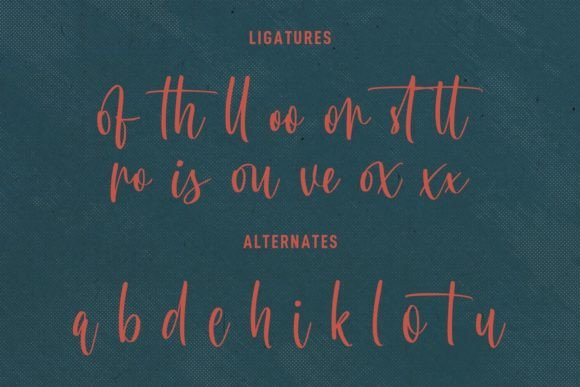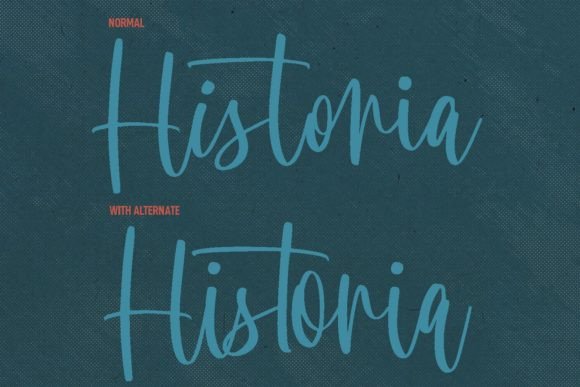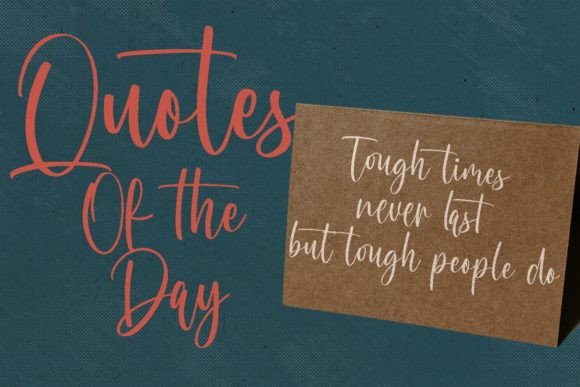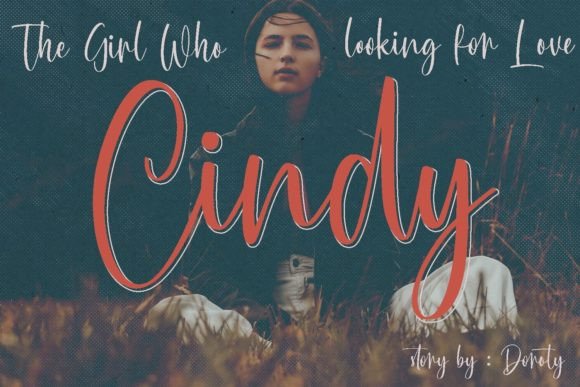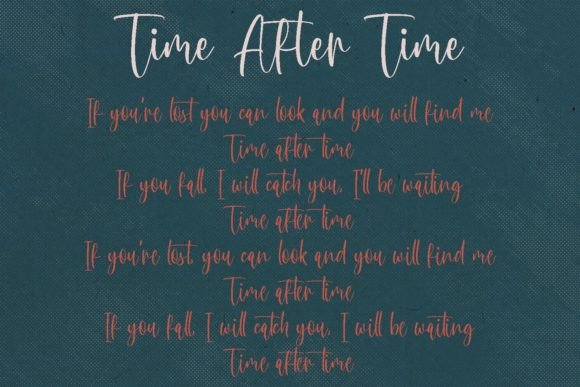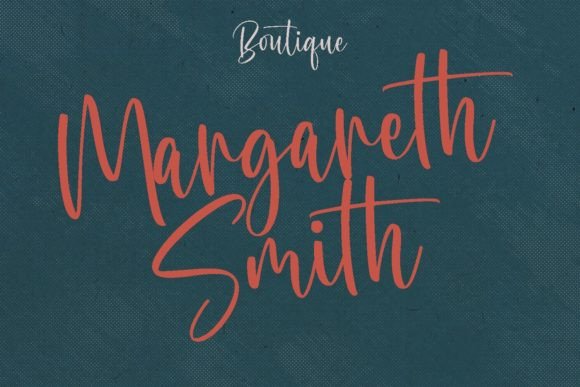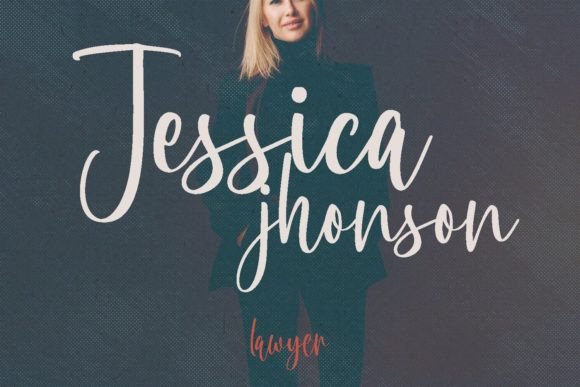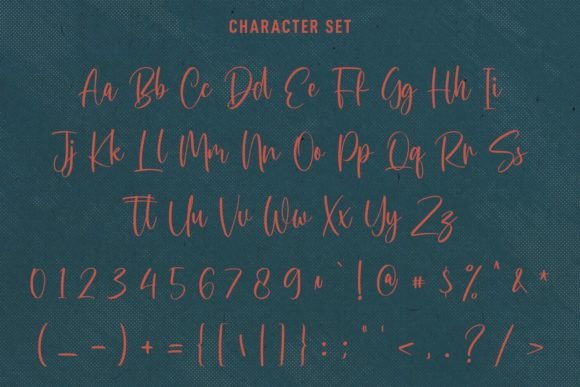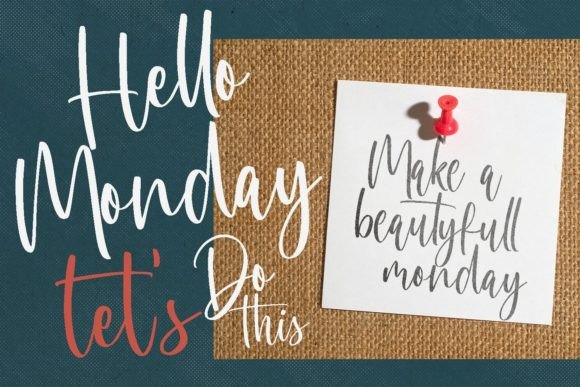
Bleachys Font
About Bleachys Font
Bleachys, a modern and casual script font, emerges with a high-contrast stroke, lively characters, and the added flair of ligatures and alternates, providing ample creative opportunities. This font is well-suited for a range of design applications, making it an excellent choice for logo design, social media graphics, movie titles, books titles, short text, long text, and as a complementary element to sans or serif fonts for secondary text.
The high-contrast strokes in Bleachys contribute to its modern and stylish appearance. This feature enhances the visual impact of the font, making it particularly effective for logo design. Bleachys brings a contemporary and dynamic quality to logos, allowing them to stand out with a touch of sophistication.
In social media graphics, Bleachys’ fun and casual characters inject a sense of playfulness and creativity into your posts. Whether you’re creating content for Instagram, Facebook, or other platforms, the font’s distinct style adds a visual appeal that captures attention and engages your audience.
Movie titles benefit from Bleachys’ unique and eye-catching design. The script font imparts a cinematic quality to titles, creating a memorable and stylish impression. Its versatility allows it to adapt to different genres, adding a personalized touch to movie credits and promotional materials.
For books titles, Bleachys offers a balance of readability and artistic flair. The font’s casual script style adds character to book covers and titles, setting a tone that aligns with the theme or genre of the book. Whether used in fiction or non-fiction contexts, Bleachys adds a touch of creativity to book design.
The inclusion of ligatures and alternates in Bleachys enhances the font’s creative potential. This feature allows for variations in character combinations, enabling you to customize and experiment with the overall aesthetic of your designs, adding a unique and personalized touch.
Bleachys proves versatile in handling both short and long text. Whether you’re designing a poster with concise messaging or working on extensive textual content, the font maintains readability while infusing a sense of style into the overall composition.
When used as secondary text alongside sans or serif fonts, Bleachys adds a complementary touch that enhances visual interest. This makes it a valuable asset for creating diverse and harmonious typographic combinations in your design projects.
In summary, Bleachys is a versatile and creative script font designed to make an impact in various design contexts. Whether you’re crafting logos, social media graphics, movie titles, books titles, or incorporating it into your typography toolkit, Bleachys offers the flexibility and artistic flair needed to create stunning and engaging designs. Embrace the unique characteristics of Bleachys to elevate your creative work and make a lasting impression with its modern and casual charm.